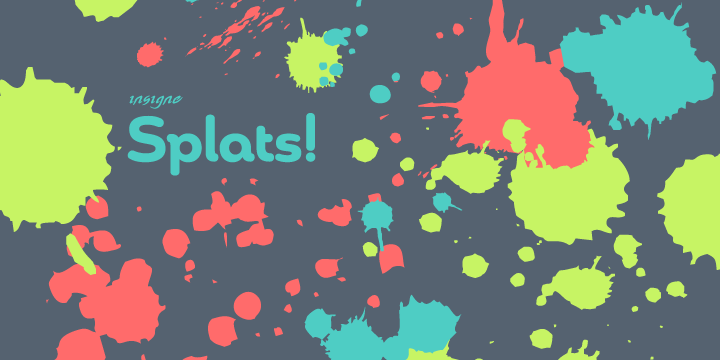
insigne Splats! is a dingbat and grunge font published by Insigne Design.
Insigne Splats! is a series of vectorized ink splatters that can be quickly and easily used in your artwork. There are 64 unique and useful ink splatters. These individual splats can be combined, decomposed and organized to accent your designs. Splats! works well in conjunction with some of insigne’s grungier faces such as Valfieris Aged, Arendahl, Majidah or Blue Goblet. Please see the printable sample .pdf for a full preview of all the splats available and the keys they map to.